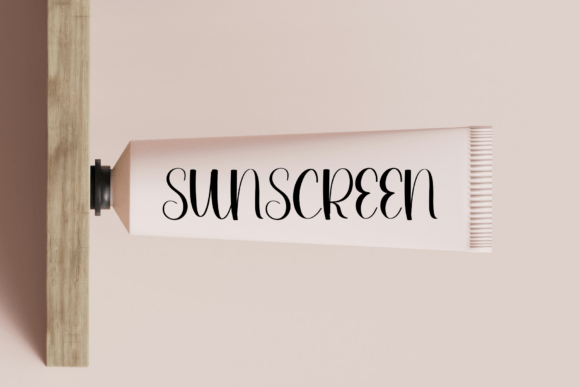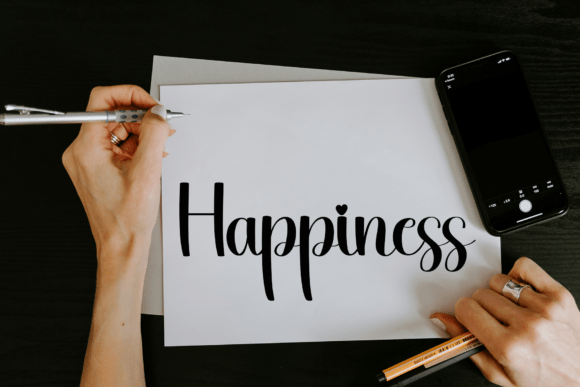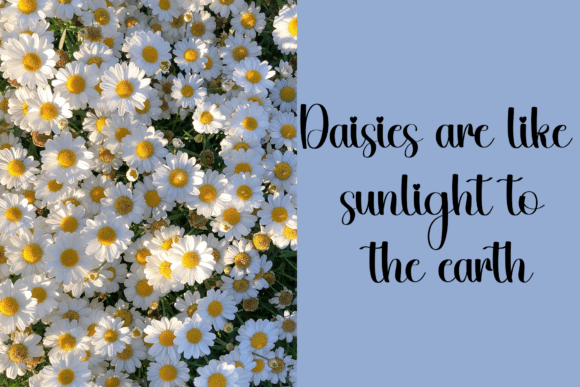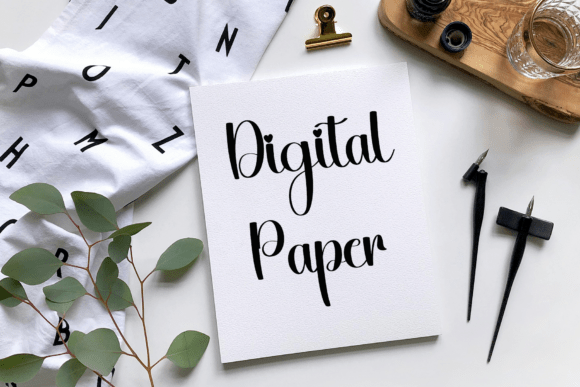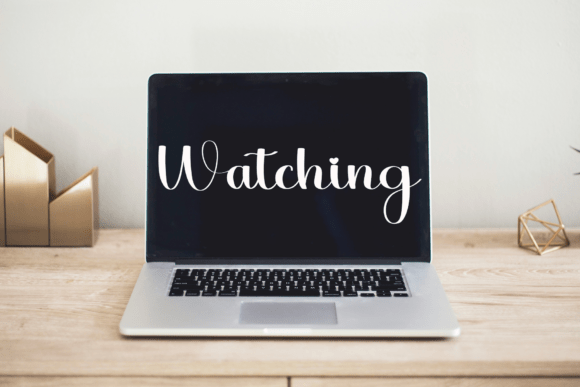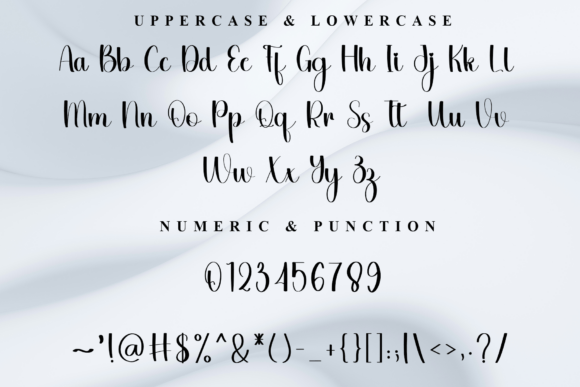
The Daisy Font: A Charming Companion for Creative Projects
I’ll never forget the time I was working on a whimsical craft project, pouring my heart into designing the perfect invitation for a friend’s baby shower. As I sat in front of my computer, scrolling through font after font, I just couldn’t find the right fit. That’s when I stumbled upon the Daisy font, and it instantly felt like a warm hug for my design. Its playful, hand-drawn aesthetic and inviting vibe made it the perfect match for my project. In this article, I’ll share with you why I’m obsessed with the Daisy font, its features, and how you can make the most of it in your creative endeavors.
As a designer, I’m always on the lookout for fonts that can bring a touch of personality to my projects. The Daisy font has quickly become a favorite of mine, and here’s why:
- ✨ Warm and Friendly Vibe: The round, playful strokes of the Daisy font create a relaxed and approachable feel that’s perfect for personal projects, invitations, and social media graphics.
- ✅ Charming, Hand-Drawn Aesthetic: The font’s unique, hand-drawn look adds a fun and distinctive touch to any design, making it stand out from more generic fonts.
While I adore the Daisy font, there are a few minor quirks to be aware of:
- ⚠️ Limited Formality: Due to its casual nature, the Daisy font might not be the best fit for projects requiring a high level of formality or professionalism.
- 🤔 Occasional Kerning Issues: As with any font, you might encounter some kerning issues, especially when using it in combination with other fonts or in certain design contexts.
The Daisy font comes with a range of OpenType features and glyphs that can enhance your designs. Here are a few tips on how to access and use them:
- Stylistic Alternates: Many fonts, including Daisy, offer stylistic alternates that can add variety to your text. Look for the Stylistic Alternates feature in your design software to access these alternatives.
- Glyphs: The Daisy font includes a range of glyphs, such as ligatures, ornaments, and swashes. Experiment with these glyphs to add a personal touch to your designs.
The Story Behind the Daisy Font
The Daisy font was designed with the intention of creating a friendly and approachable typeface that could bring warmth and personality to various design projects. Inspired by the charm of hand-drawn fonts, the designer aimed to create a font that would feel like a warm hug for readers. With its playful strokes and inviting vibe, the Daisy font has become a popular choice among designers and crafters.